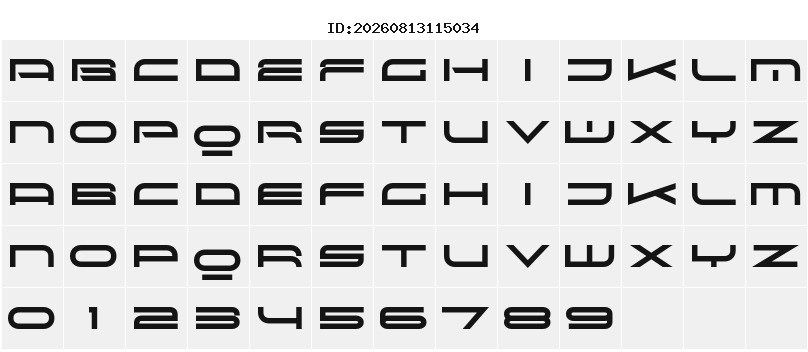
Red Seven Preview
About Red Seven.otf
Red Seven.otf is a modern, elegant sans-serif font designed for ultimate readability and visual harmony. Perfect for branding, headlines, web design, and print materials.